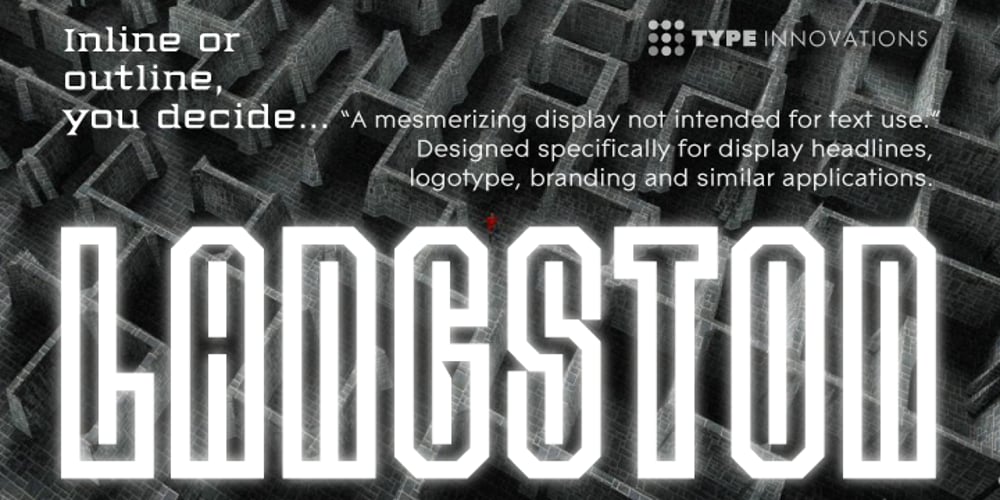
Langston Font Family was designed by Alex Kaczun and published by Type Innovations. Langston contains 2 styles and family package options. Langston is an original design by Alex Kaczun. It’s part of a series of lettering experiments, manipulating body proportions, characteristic elements and spacing to achieve some dramatic visual effects. It is hard to characterize if Langston is an outline or inline font. The outline has the same thickness and proportions as the stems. And the inter-letter spacing is also visually similar. This creates a dynamic and interesting visual harmony throughout. Furthermore, certain design elements like the accents and punctuation symbols, break with the outline treatment, and morph into an interesting play between inline and outline. The overall effect is stunning and mesmerizing. Langston is a display font not intended for text use. It was designed specifically for display headlines, logotype, branding and similar applications.This attractive display comes in roman with lower case and lining figures.The font is also available with true small capitals and old style figures. A special version was created with decorative initial capitals to further enhance the possibilities. The large Pro font character set supports most Central European and many Eastern European languages.